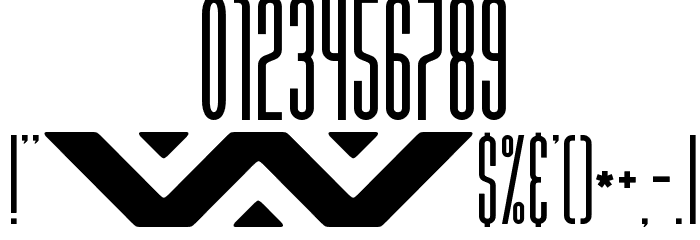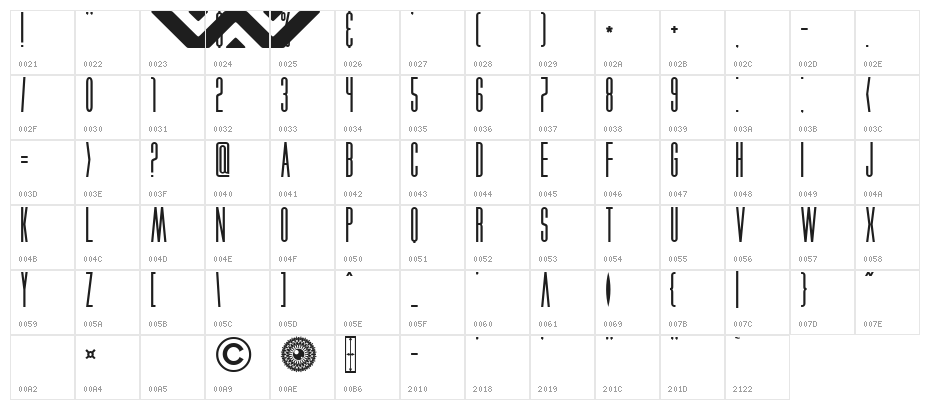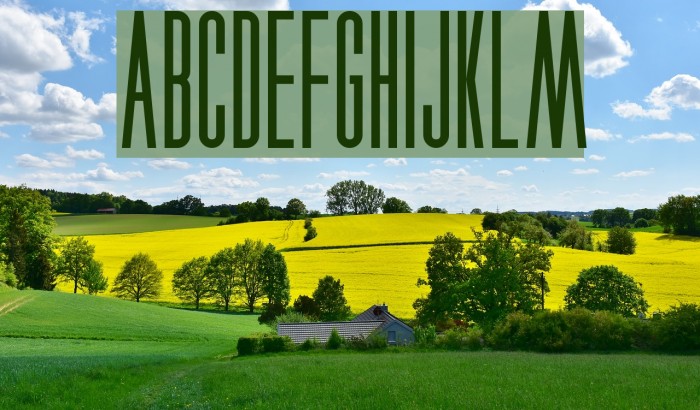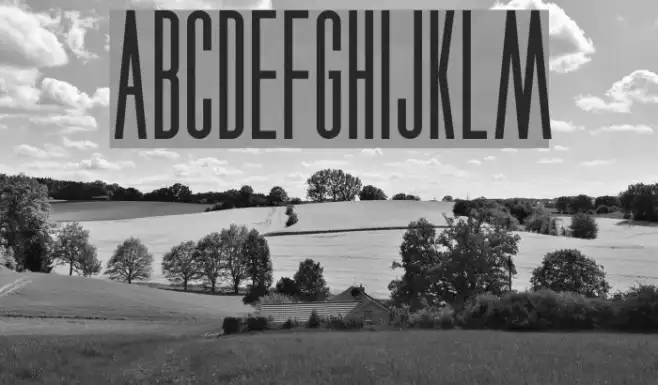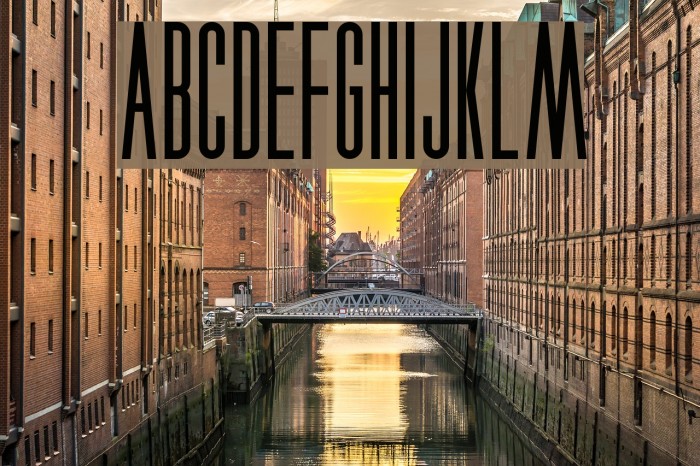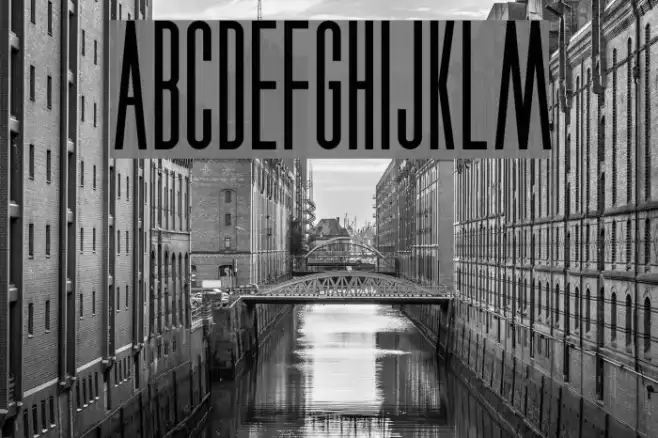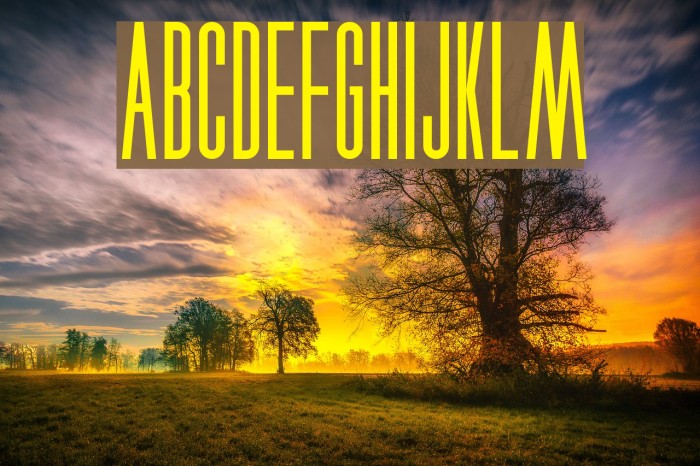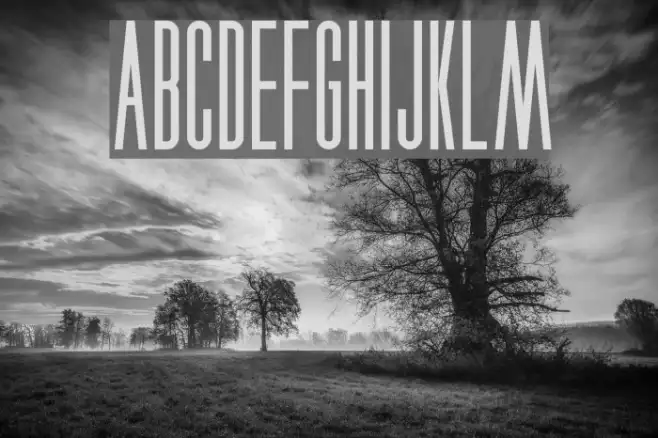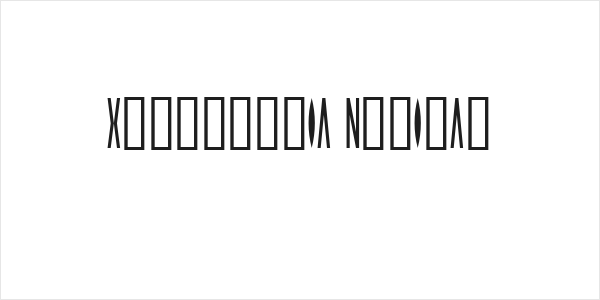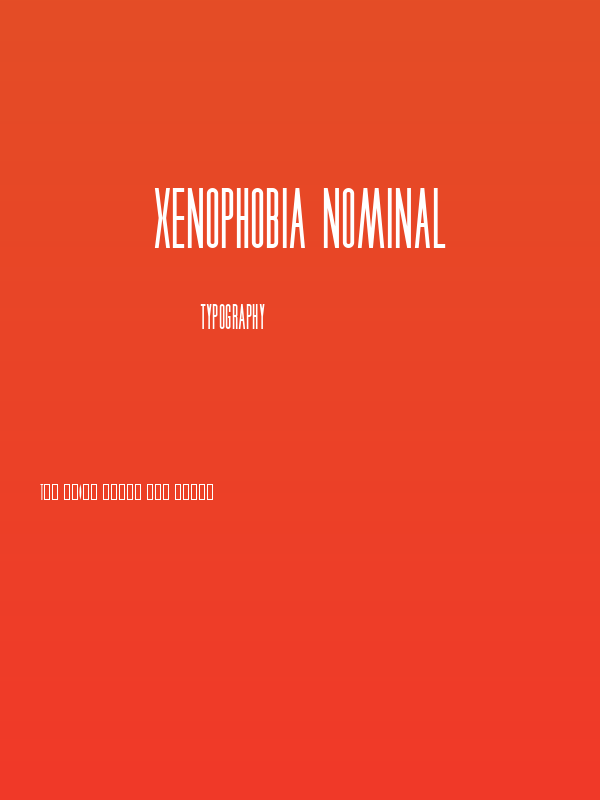
Xenophobia Nominal Font
Xenophobia Nominal Description
This font features an ultra-condensed and tall design, characterized by its elongated vertical lines and narrow spacing. The uppercase letters are particularly striking, with a modern and sleek appearance that emphasizes height and minimalism. The numbers follow the same condensed style, ensuring consistency across all characters. Special characters are uniquely stylized, adding a decorative touch that complements the overall aesthetic. The font's geometric precision and clean lines make it ideal for projects that require a bold, contemporary look.
| Proposed Projects | Ideal for futuristic branding, modern posters, and innovative product packaging. |